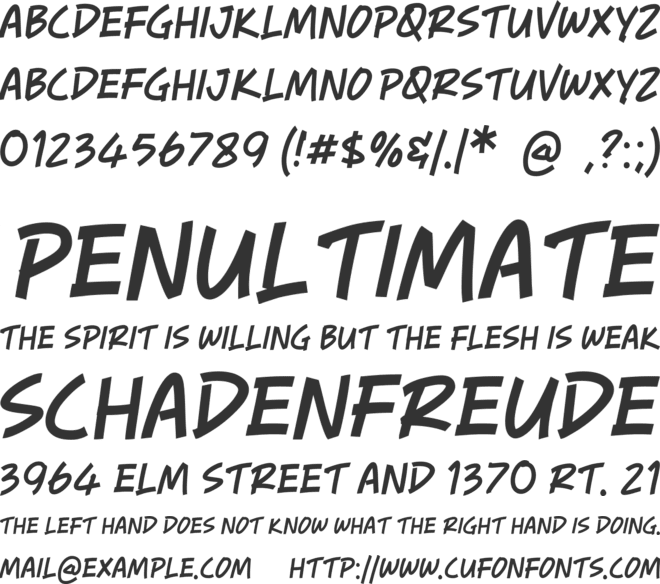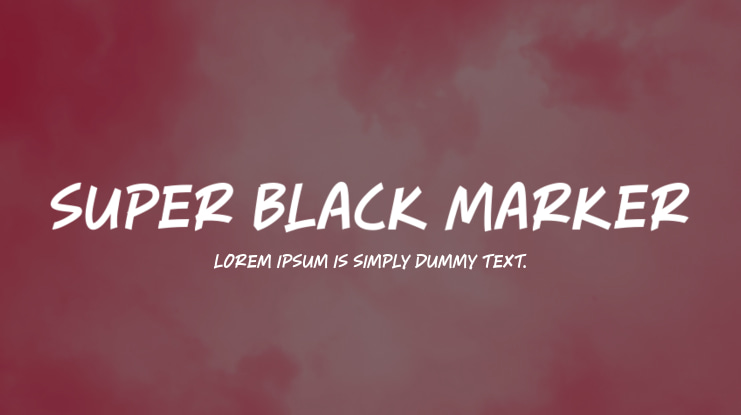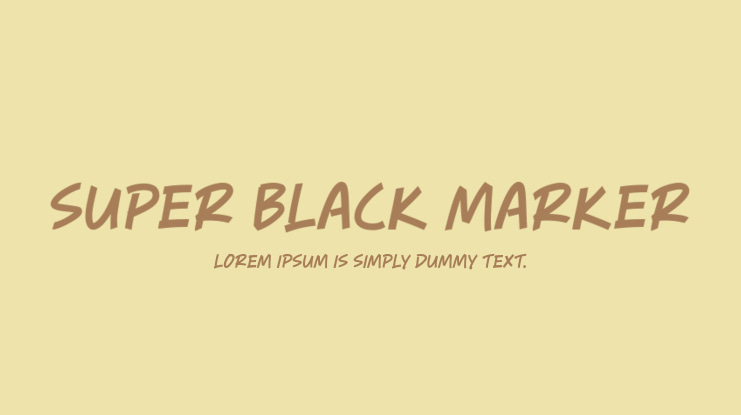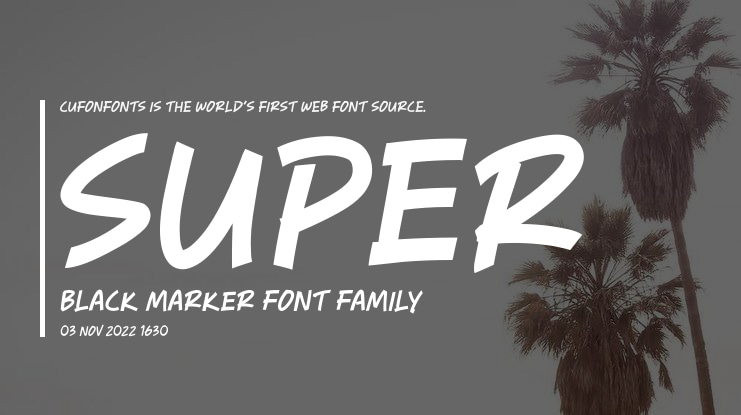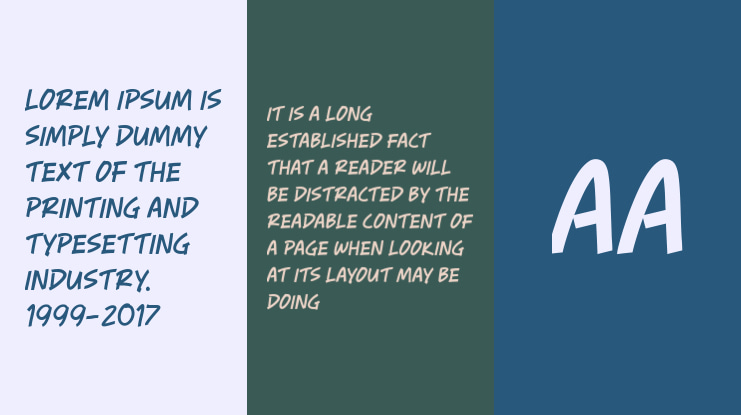
Super Black Marker Font
Introducing “Super Black Marker – Handwritten Display Font”– your ultimate tool for adding a bold, expressive, and personal touch to your design projects. This unique font encapsulates the raw energy and charisma of hand-drawn text, giving your creations an authentic, human feel.
Crafted with precision, the Super Black Marker font is perfect for a wide range of applications. Whether you’re designing eye-catching posters, attention-grabbing signage, or adding a personal flair to your digital content, this font delivers the impact you need. Its bold strokes and distinct character create an unmistakable presence, ensuring that your message stands out in style.
With versatility in mind, Super Black Marker offers multilingual support, making it accessible to a global audience. Plus, it’s incredibly easy to use, whether you’re a seasoned designer or just starting on your creative journey.
Elevate your projects with the Super Black Marker – Handwritten Display Font Today and let your words and designs leave a lasting impression that’s as unique as you are.
Super Black Marker Display Font by Slidehack at 2023